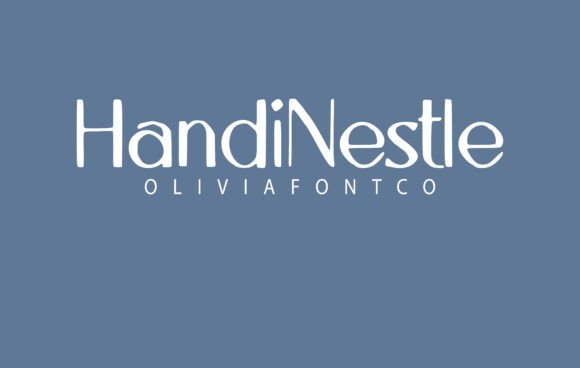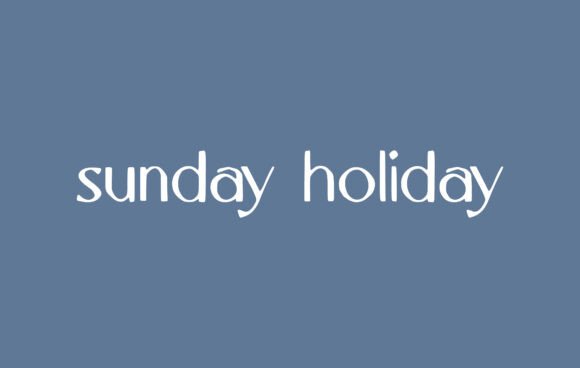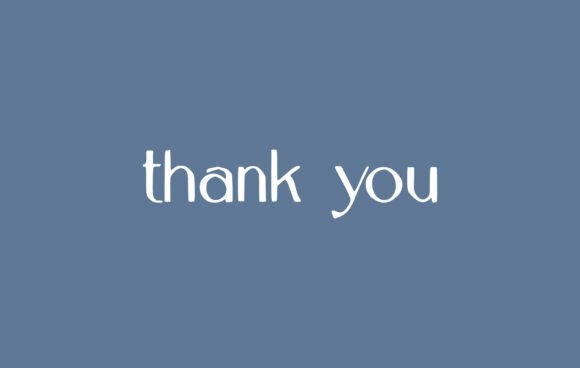
Handinestle Font: Romantic Handwritten Font for Wedding Invitations
About the Handinestle Font
Add a touch of class to your work with the Handinestle Font, a truly exceptional typeface. HandiNestle font is an authentic handwritten font with a romantic touch. Expertly designed to be a true favorite, this font has the potential to take your creative ideas to the highest level
Handinestle’s romantic, handwritten style excels in headlines, short-form text for branding projects, and wedding stationery. Its legibility is best utilized in larger sizes; avoid using it for body text or long paragraphs where readability suffers. Consider pairing it with a clean sans-serif like Montserrat for a balanced contrast, or a delicate serif such as Lora for a more cohesive, romantic feel.
The font’s inherent charm makes it ideal for projects evoking feelings of warmth and intimacy. Brands targeting feminine audiences or those focusing on handmade products, artisanal goods, or events will find it particularly effective. Avoid using it for projects requiring a modern, minimalist, or strictly professional aesthetic.
For a more playful feel, consider pairing Handinestle with a script font like Great Vibes. Conversely, pairing it with a geometric sans-serif like Futura can add a touch of unexpected sophistication and balance its organic feel.
Handinestle Font Usage Examples
Handinestle Font Example